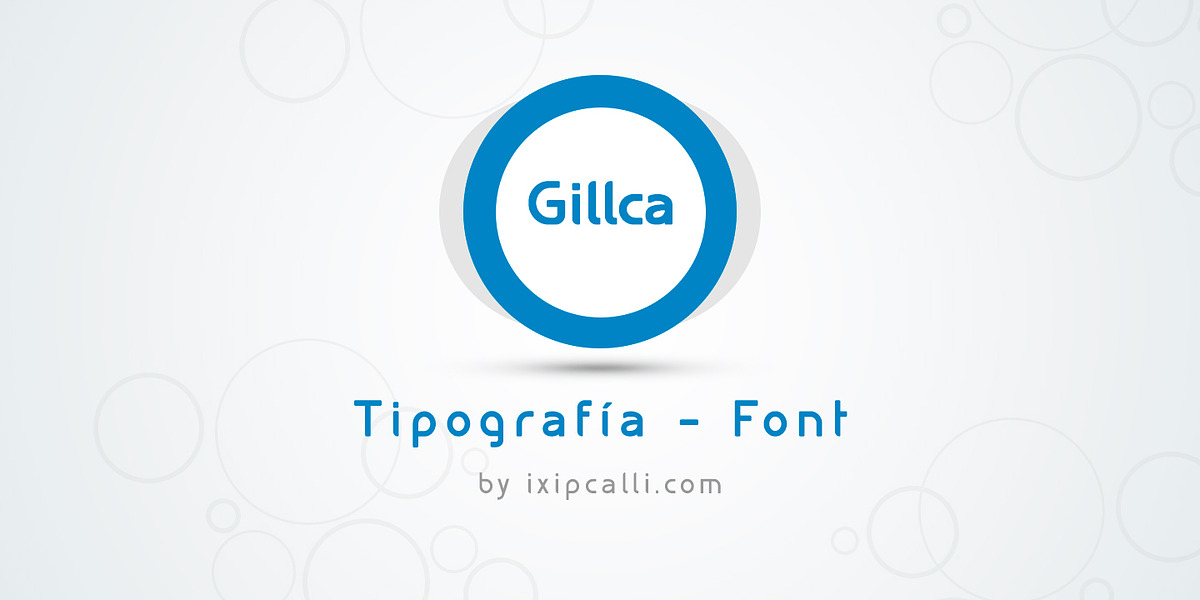
Gillca
Gillca is a sans serif typeface that is round, modern, and clean. It is well suited for informal, cartoonish, or modern technological projects. It has five weights and five italic forms.